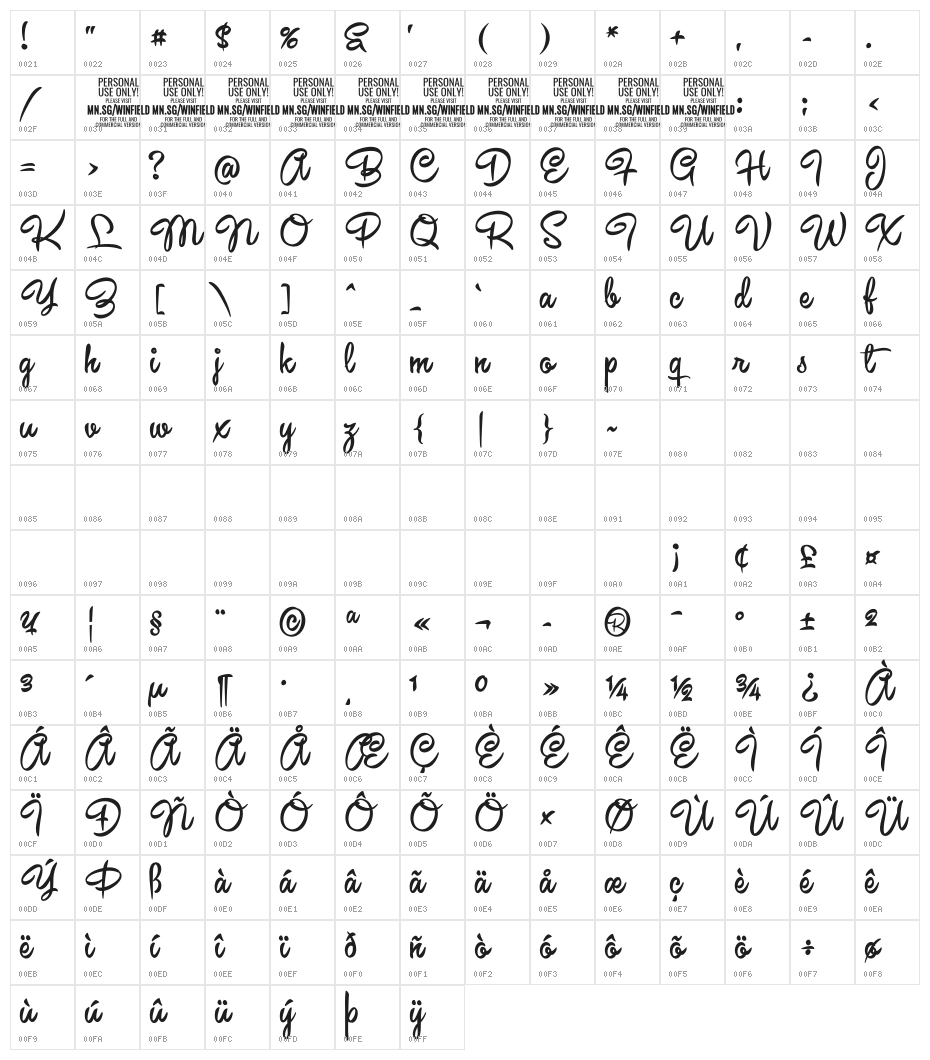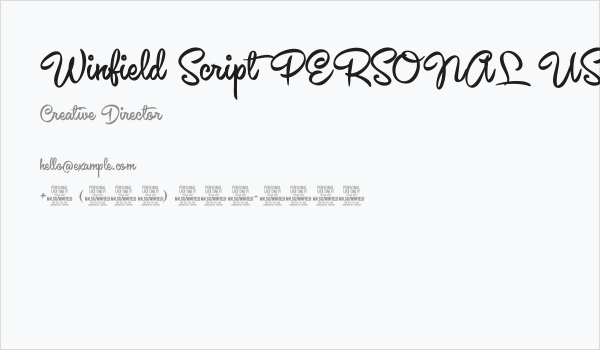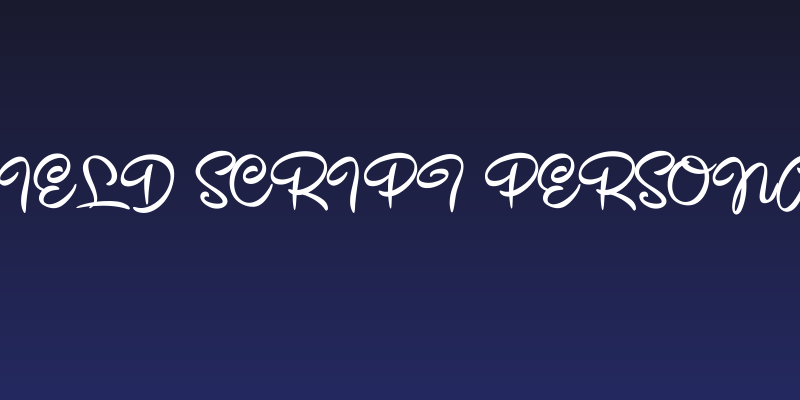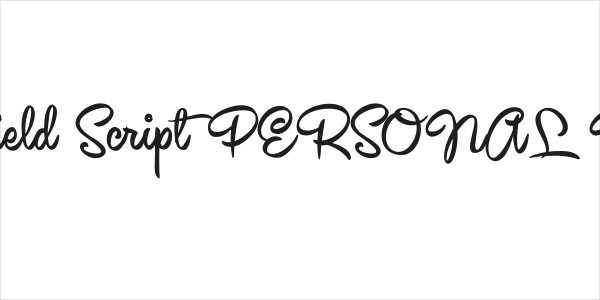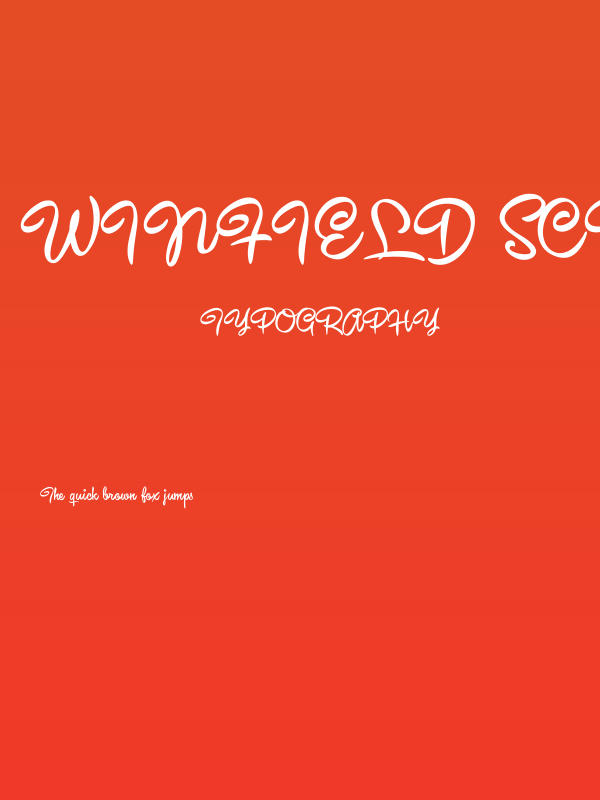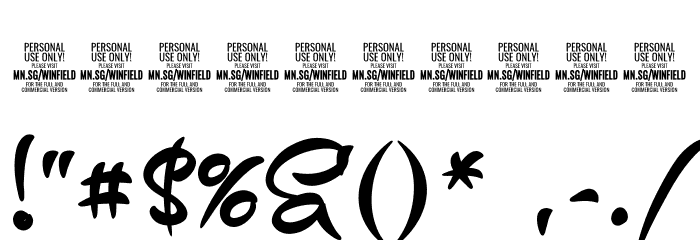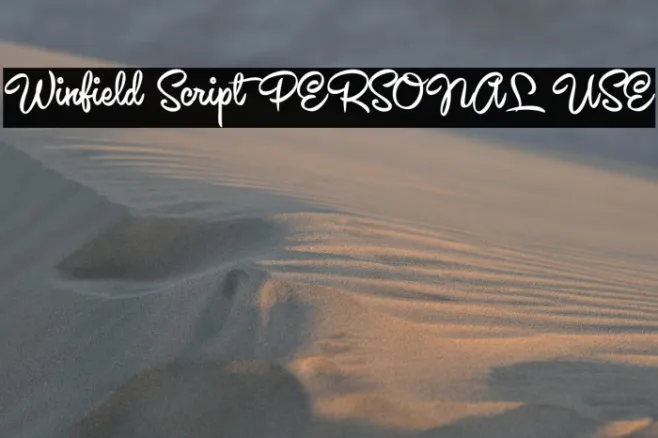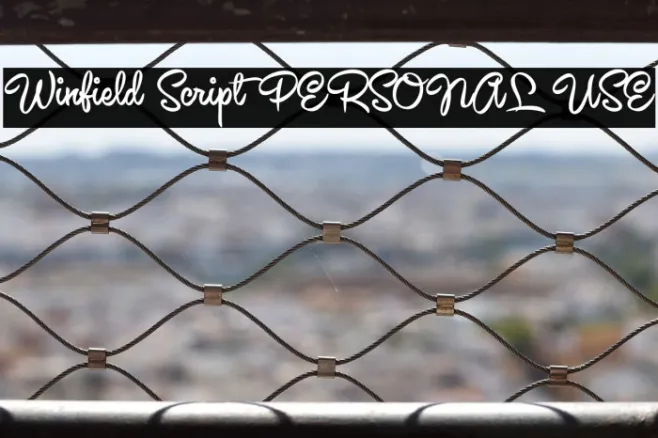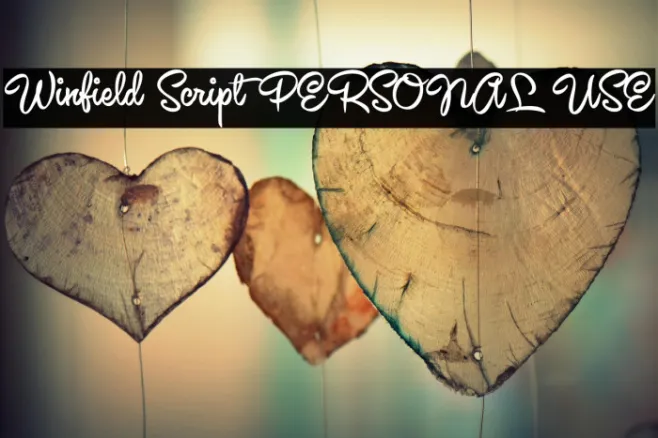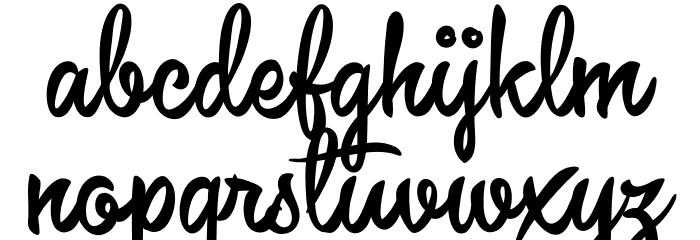
Winfield Script PERSONAL USE Font
Winfield Script PERSONAL USE Description
This font exhibits a flowing, cursive style with elegant loops and swashes, creating a sense of movement and grace. The uppercase letters are particularly ornate, featuring intricate curves and flourishes that give the font a sophisticated and artistic appearance. The lowercase letters maintain a consistent style, with smooth connections between characters that enhance readability while preserving the decorative nature. The numerals and special characters are designed to match the overall aesthetic, ensuring a cohesive look across all text elements. This font is ideal for projects that require a touch of elegance and creativity.